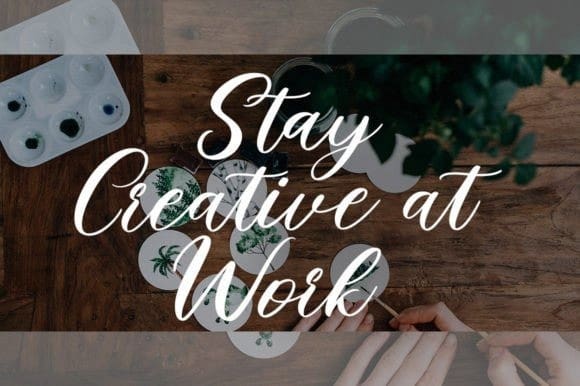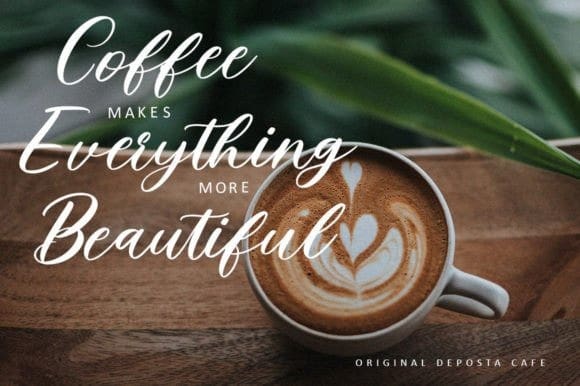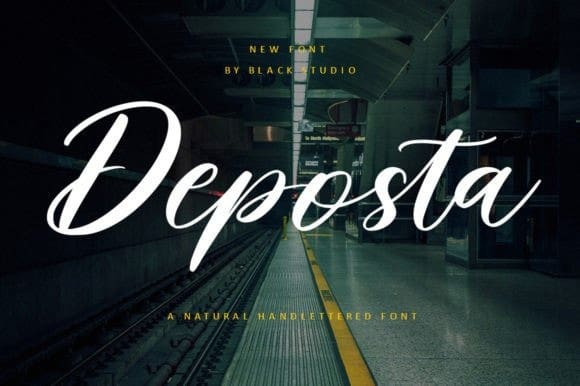
Deposta Script Font
Deposta Script Font is a very fun yet elegant script font with lots of energy, it lets you create beautifully handcrafted typography instantly. With extra curves and twists, Deposta is guaranteed to make your text stand out – perfect for logos, printed quotes, invitations, cards, product packaging, headers, weddings, and anything else you can imagine.
What’s really awesome is that Deposta has a complete set of lowercase alternatives, allowing you to create more authentic custom-feel text.